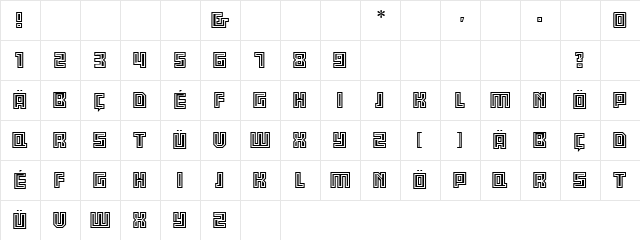
AB Engraved Regular
Design Context for AB Engraved Typeface
AB Engraved brings ornamental detail and strong personality to headlines and identities, where visual impact matters more than quiet functionality.
Font Pairing: Pair with a clean neutral sans-serif for body copy to let AB Engraved's character lead without overwhelming the composition.
Pro Tip: Use AB Engraved exclusively at display sizes — it was designed to be seen, not read at length. Let a neutral companion handle body copy.